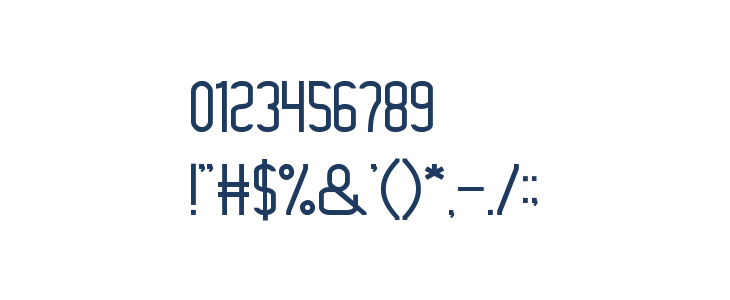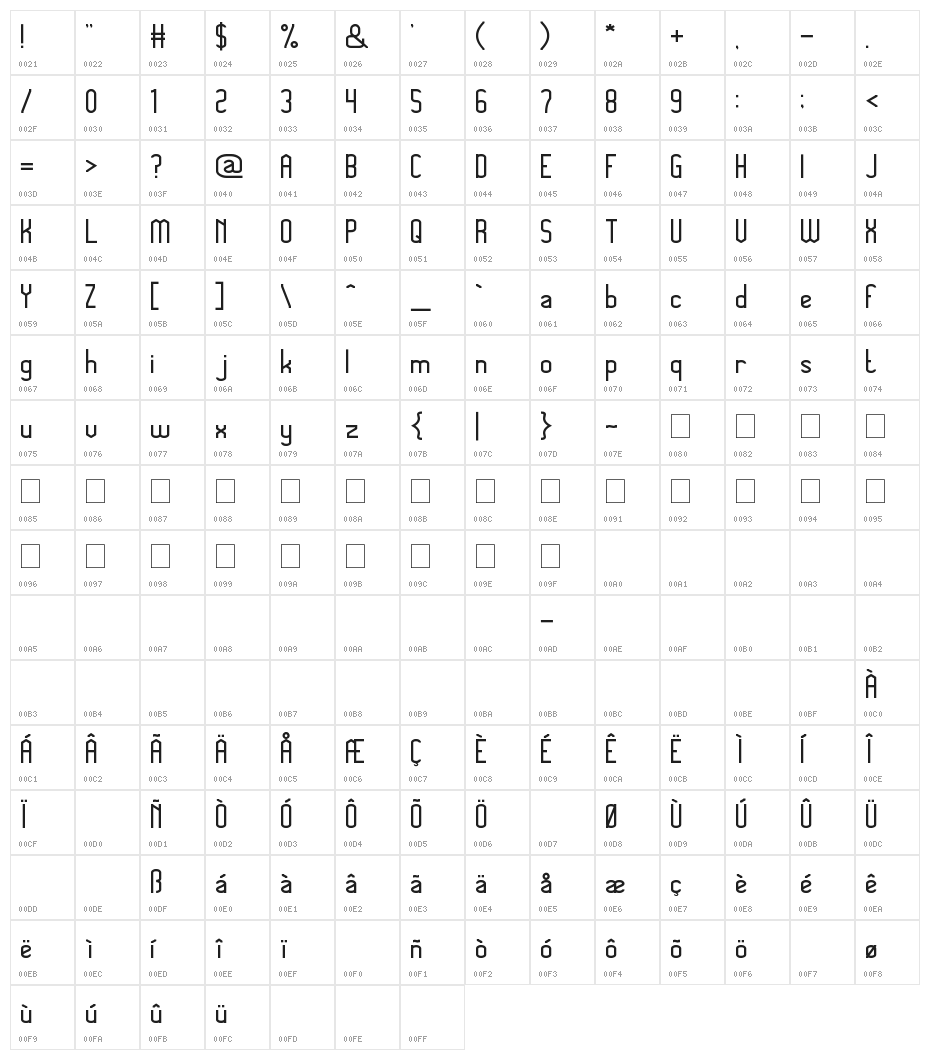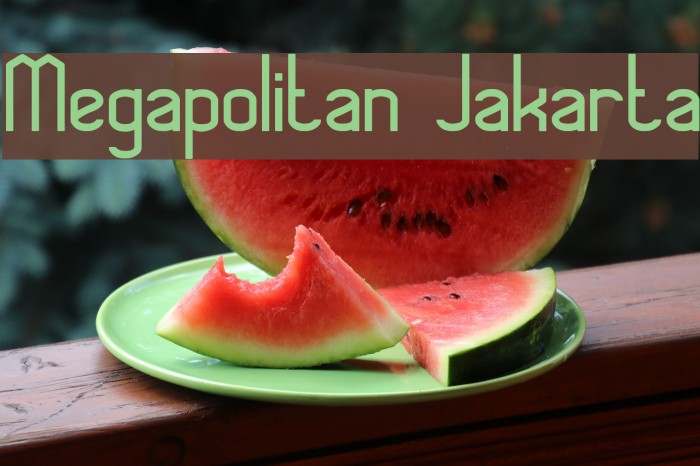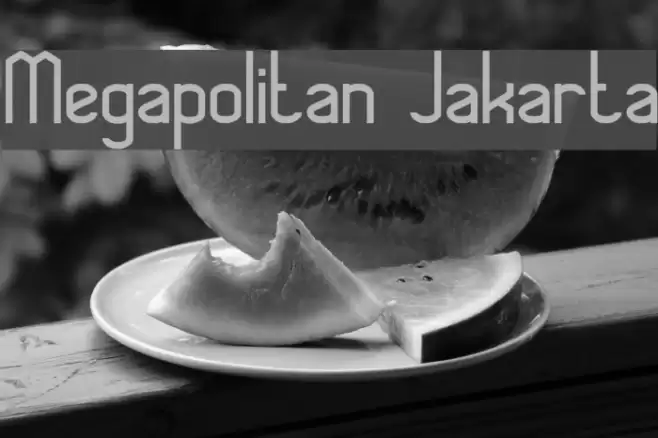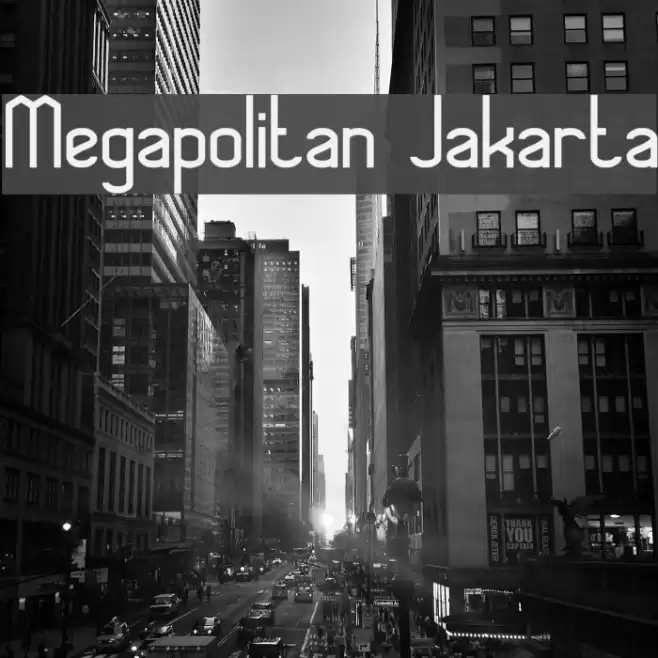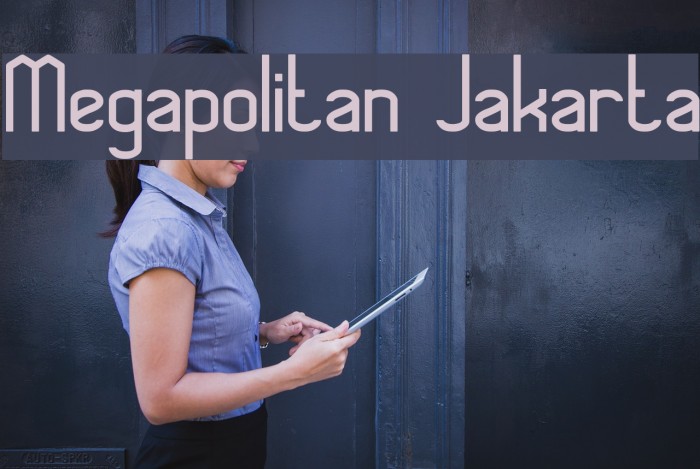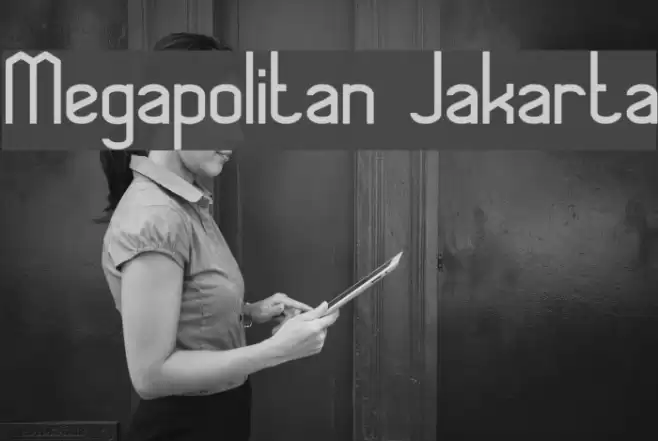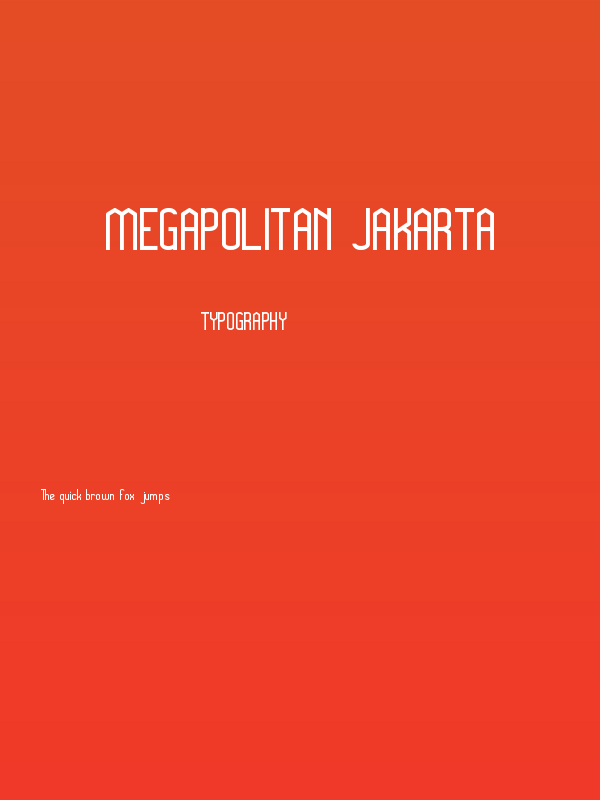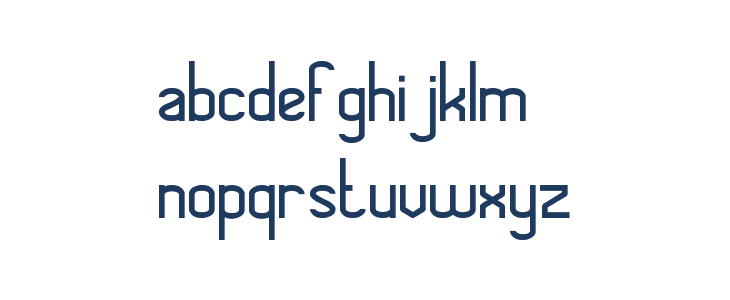
Megapolitan Jakarta Font
Megapolitan Jakarta Description
This font features a modern and geometric design with clean lines and a structured appearance. The uppercase letters are tall and narrow, with a consistent stroke width that gives a uniform look. The lowercase letters maintain the geometric style, offering a harmonious balance with the uppercase set. Numbers are clear and legible, following the same design principles. Special characters are distinct and integrate seamlessly with the rest of the font, making it versatile for various uses. The overall aesthetic is sleek and contemporary, suitable for projects that require a modern touch.